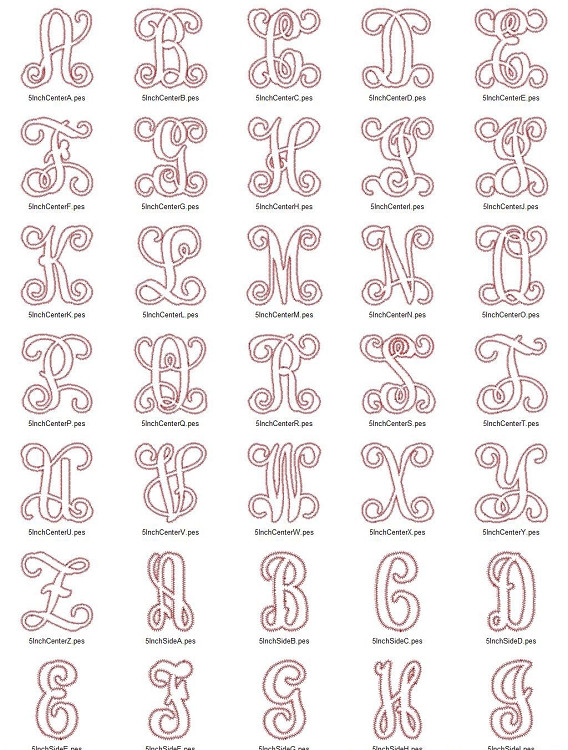
Intertwined Monogram Zig Zag Applique Machine Embroidery Alphabet Font
This set comes with center and side letters in 3 sizes:
156 Files total in this set. Each letter has a zig zag finish. If you need a satin stitched applique set - we have that available in another listing.